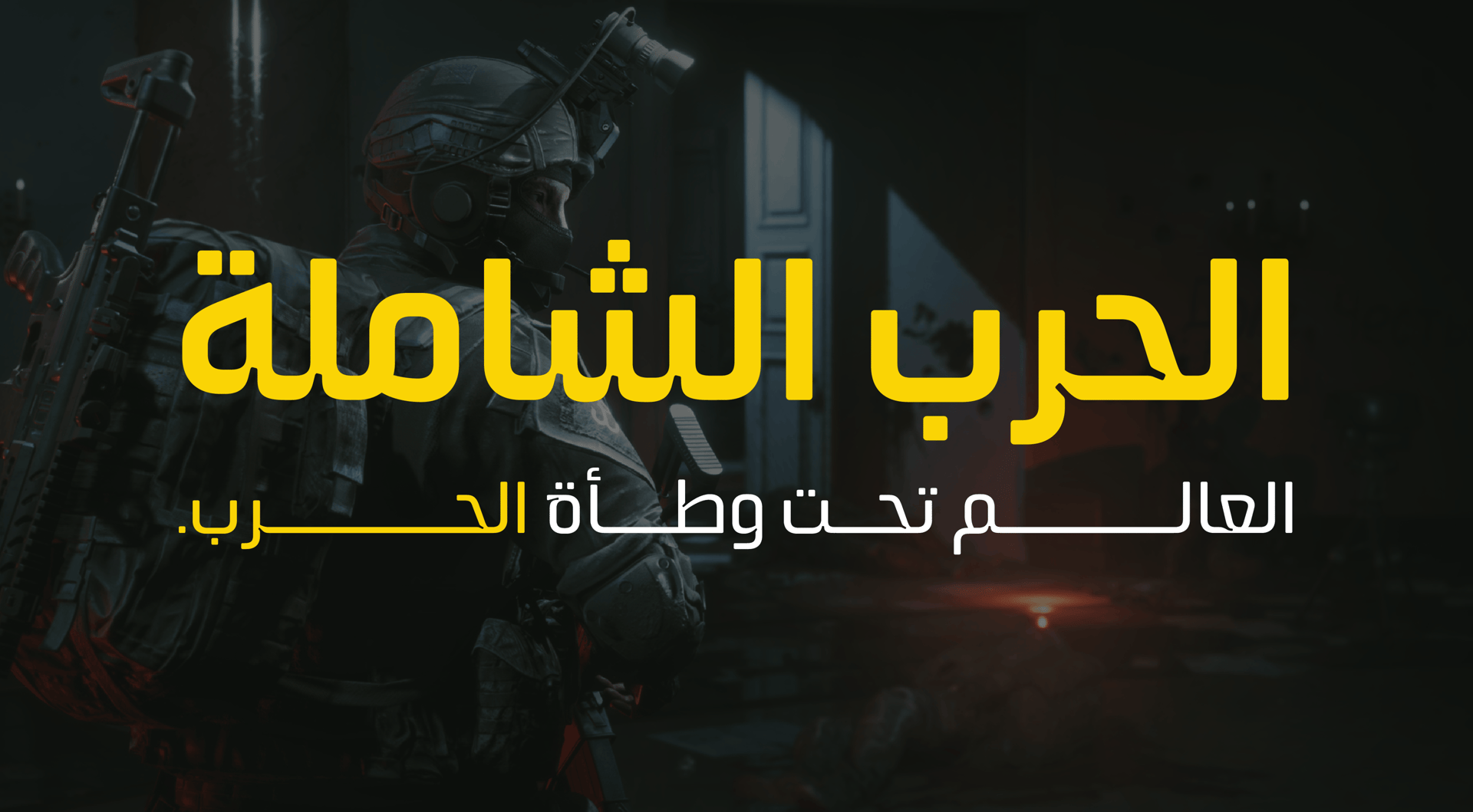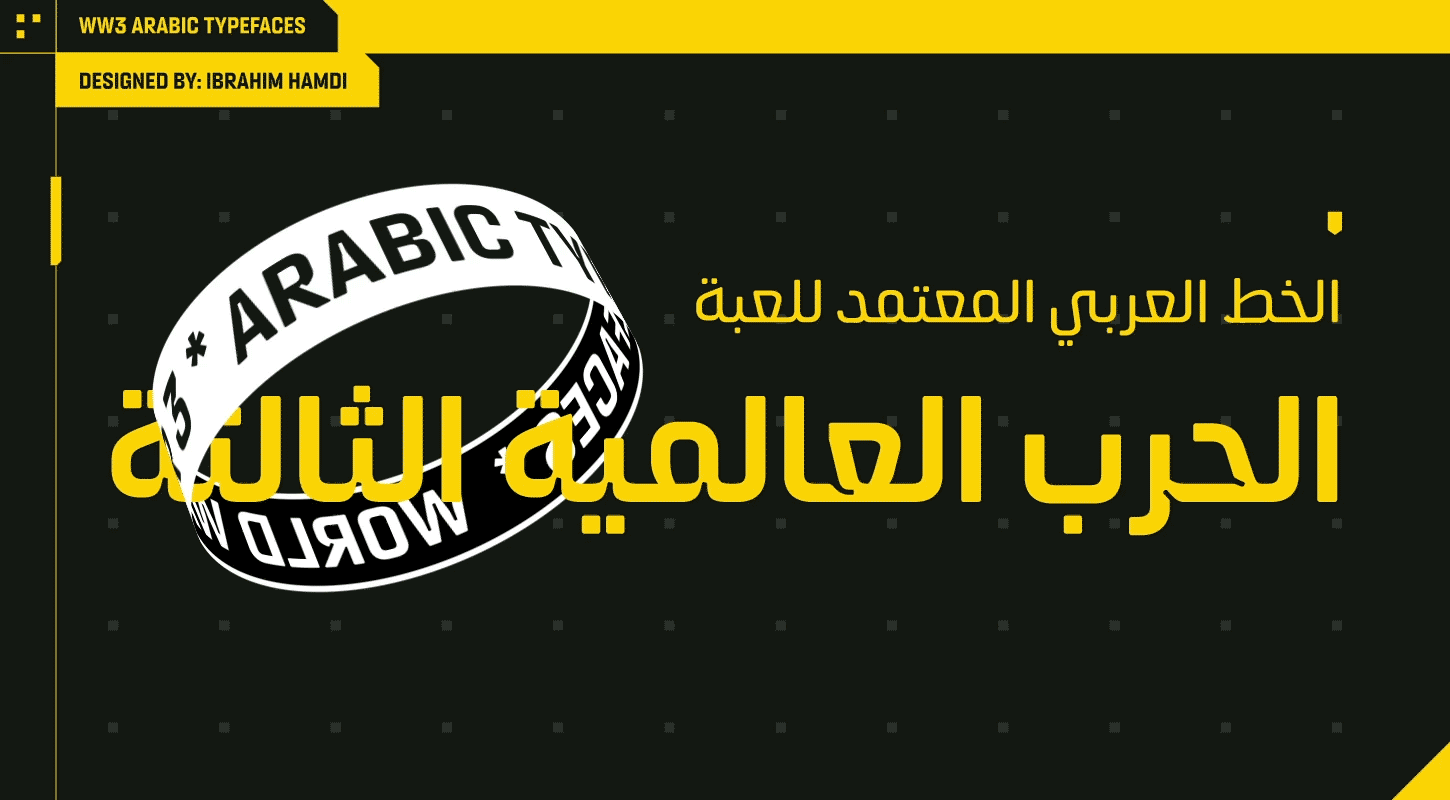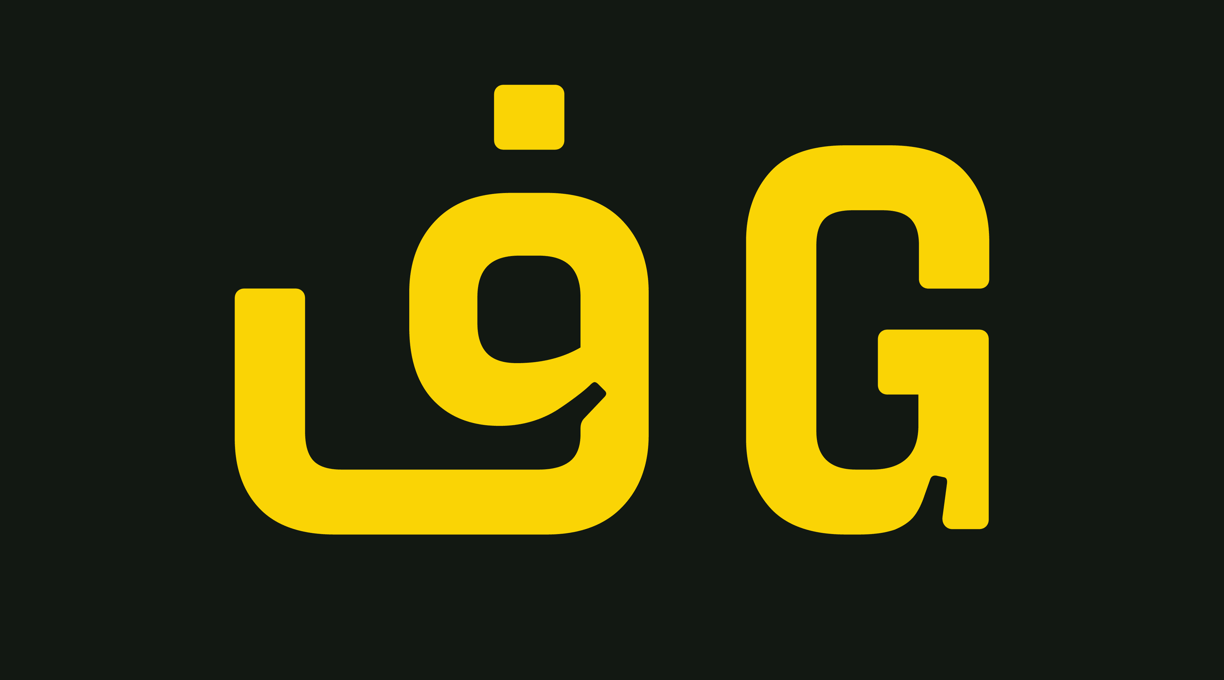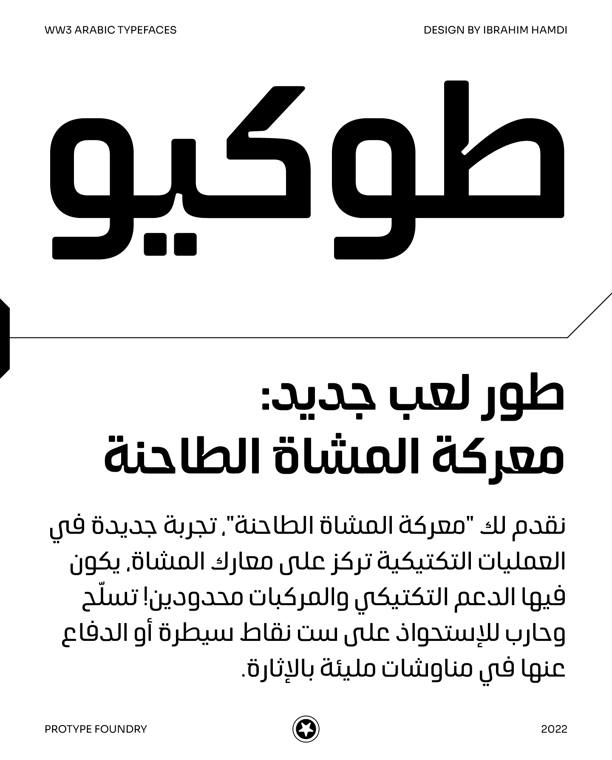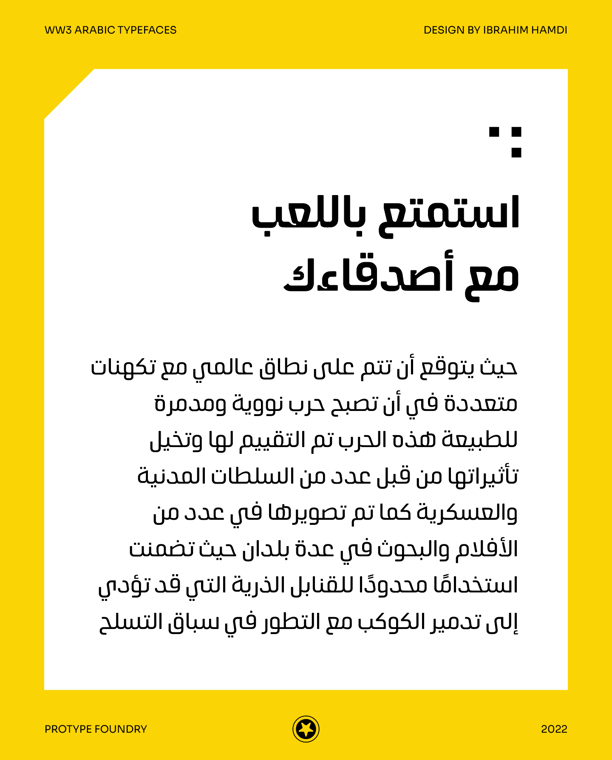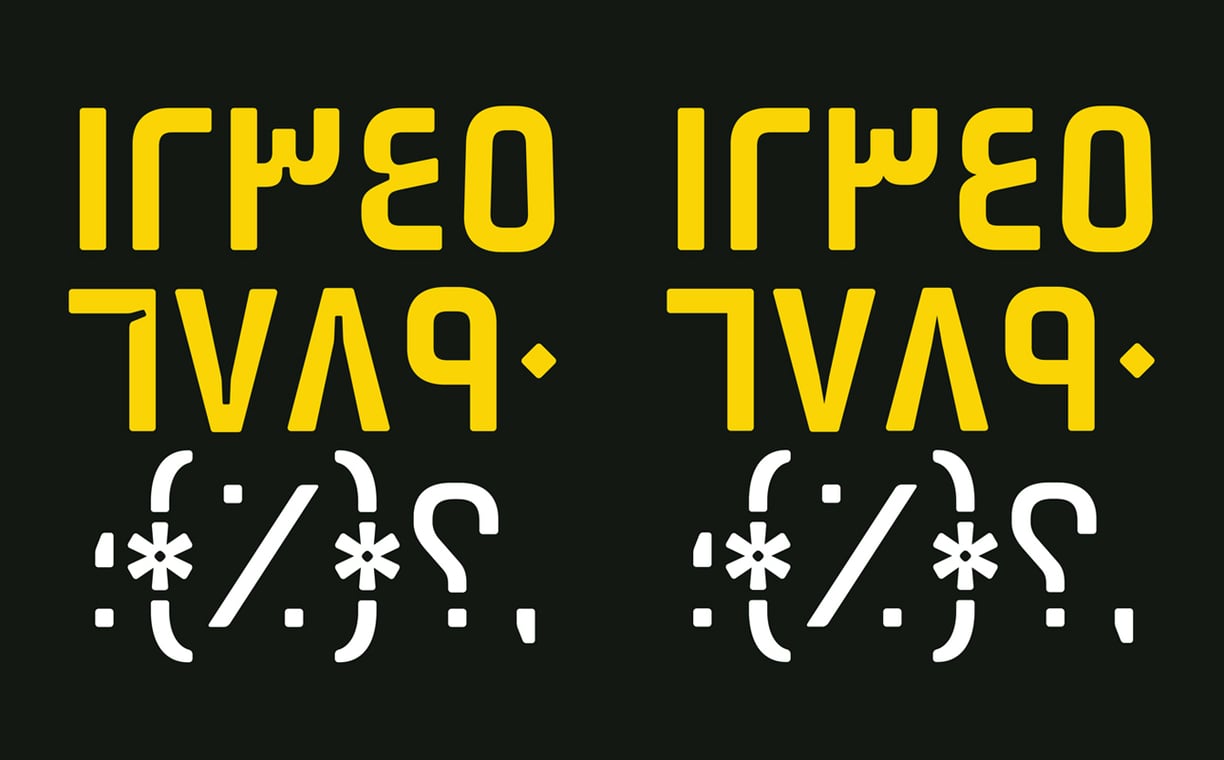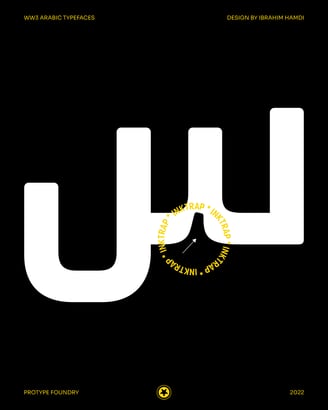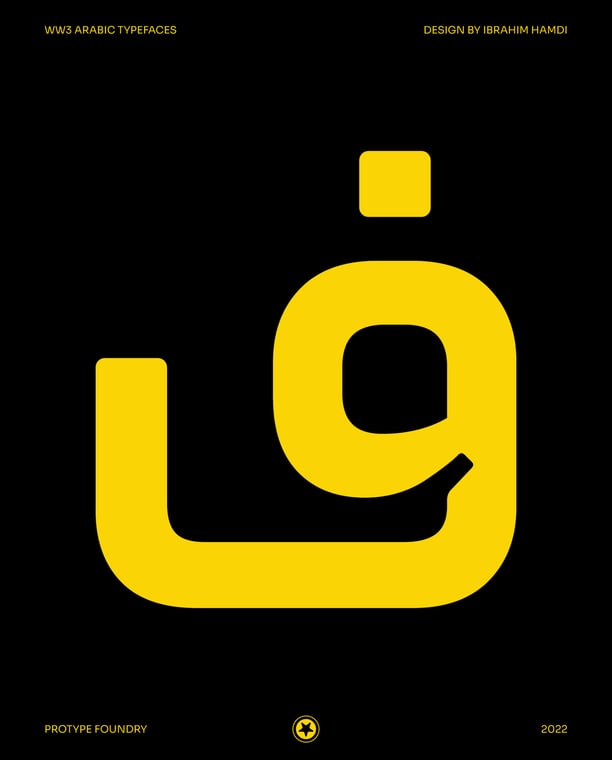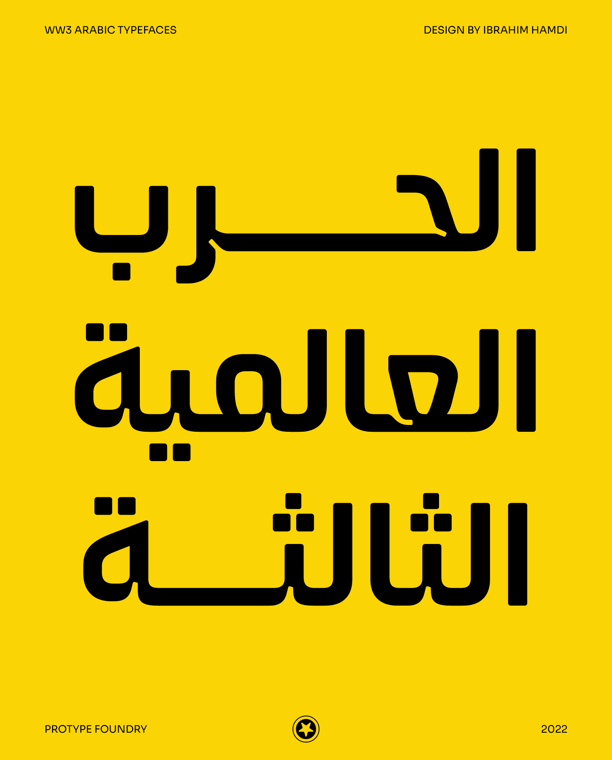
WW3 typefaces are designed exclusive for the video game World War 3 "WW3", In collaboration with The 4 Winds entertainment. We have designed the Arabic typefaces are matched with the original languages of the WW3 typeface. the original typefaces are designed in-house at MY.GAMES Games Operations and Development Department’ by Tanya Cherkiz in 2021.
The First Custom Arabic Inktrap Typeface for a Video Game, The WW3.
WW3 typefaces are modern military geometry typefaces supported Arabic and Extended Latin character and Cyrillics. with 2 styles Inktrap and Sans-Serif, each style have 2 weights "Regular and Bold" WW3 Inktrap typeface for a headlines and short text usage, and WW3 Sans typeface for text.
The Arabic typefaces are Designed by IBRAHIM HAMDI in 2022. Check the article.